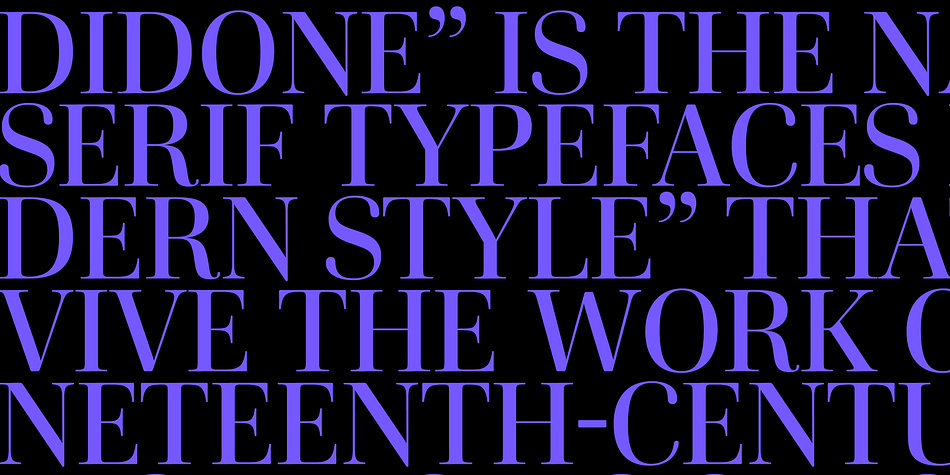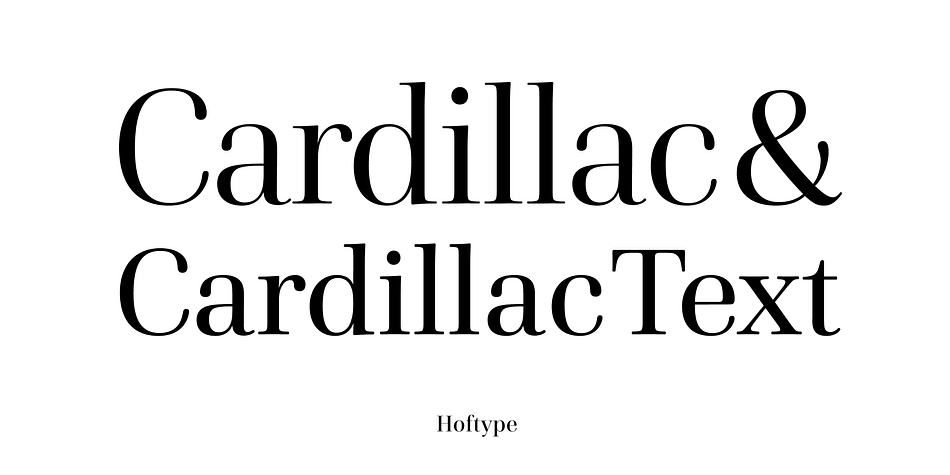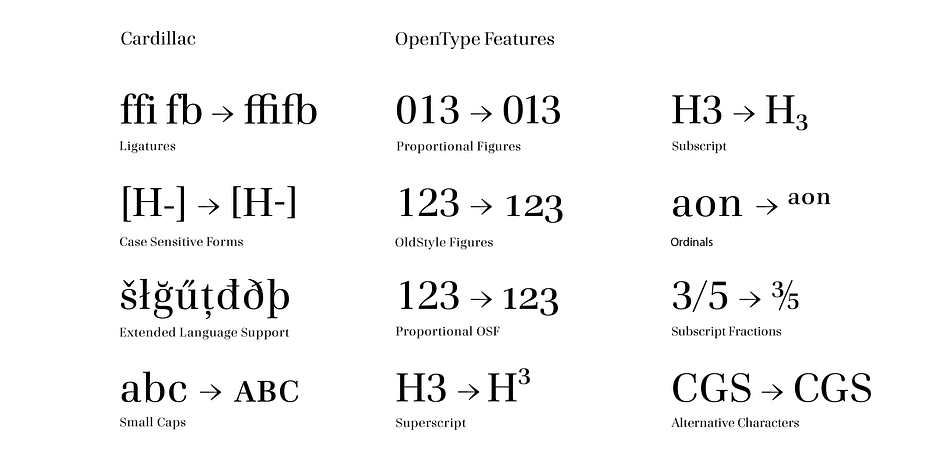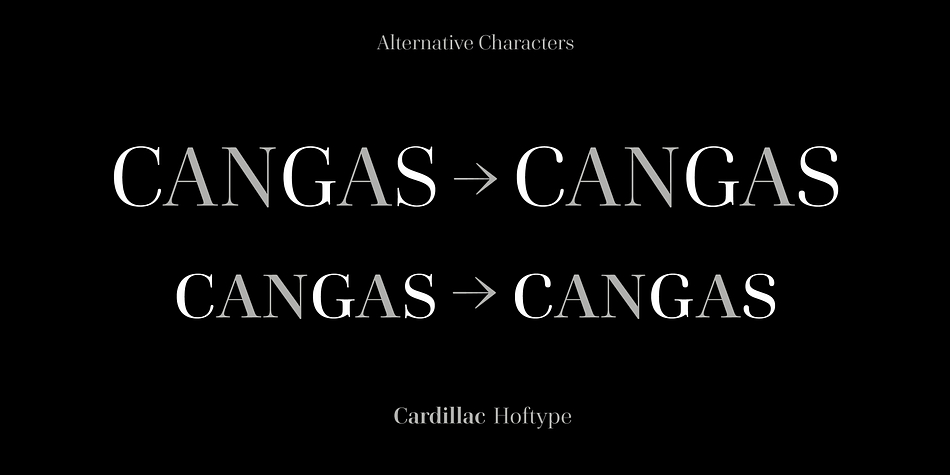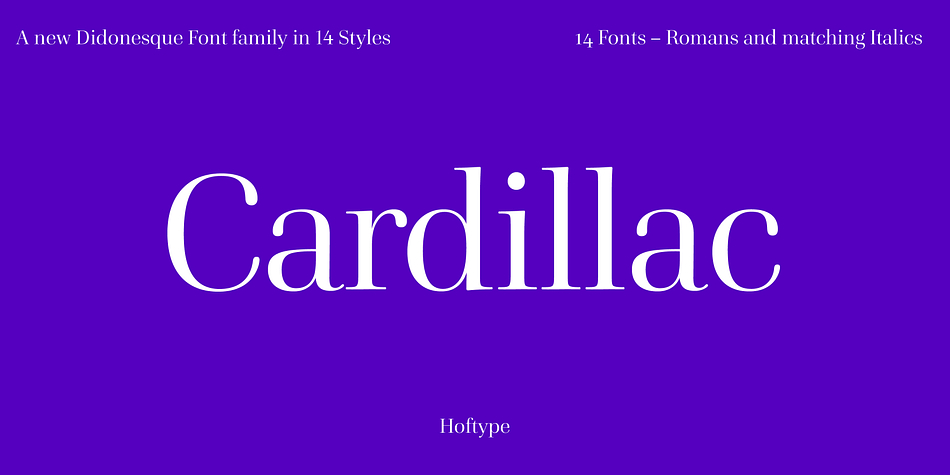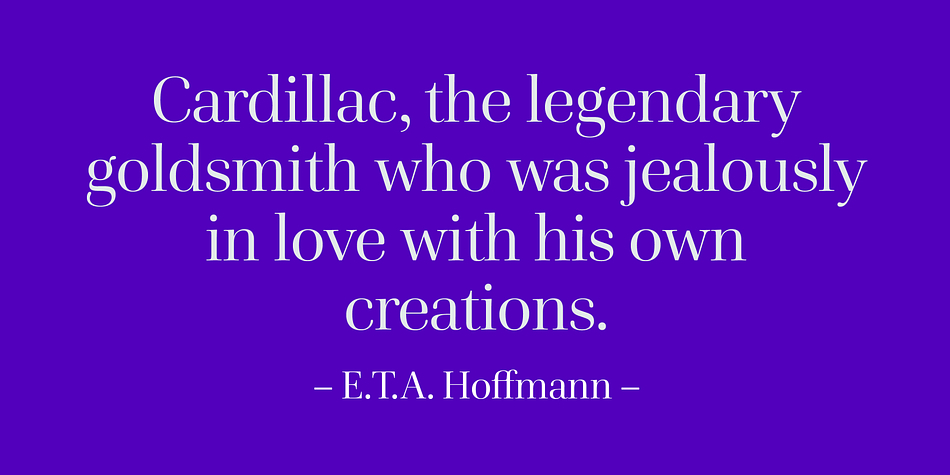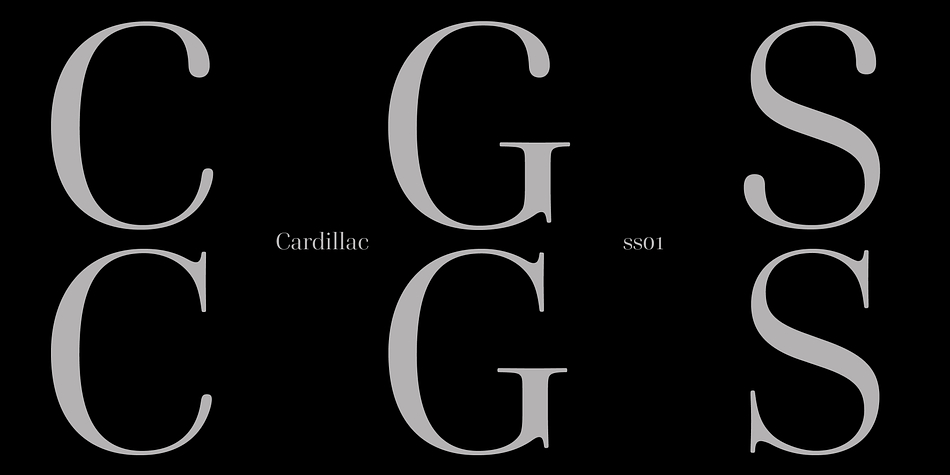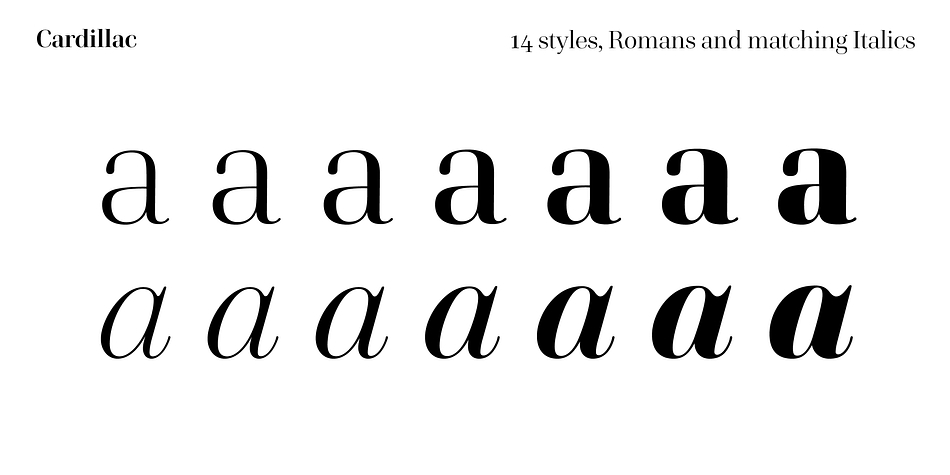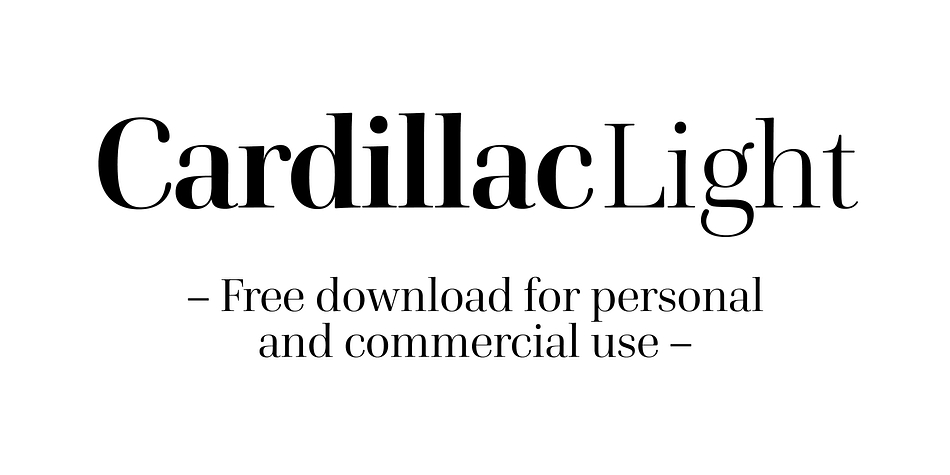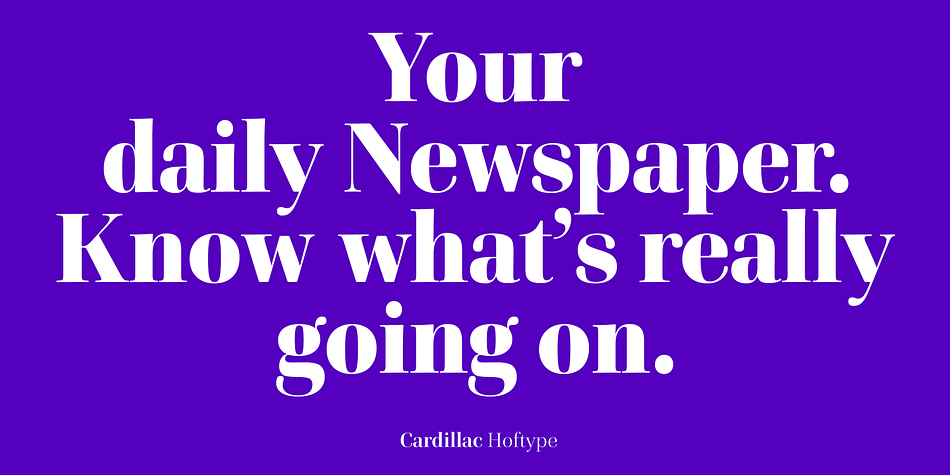
Designed by Dieter Hofrichter, Cardillac is a serif font family. This typeface has fourteen styles and was published by Hoftype.
Cardillac, named after E.T.A. Hoffmann’s literary figure, refers back to classical Didonesque, yet presents unique details which set it apart from historic models by adding a new flavour. Its clarity, noble appearance and cool elegance predestine it for magazines and newspapers.
The Cardillac Family consists of 14 styles, provides many features which allow its application for ambitious typography.
It comes in OpenType format with extended language support. All weights contain small caps, ligatures, superior characters, proportional lining figures, tabular lining figures, proportional old style figures, lining old style figures, matching currency symbols, fraction- and scientific numerals, matching arrows and alternate characters.